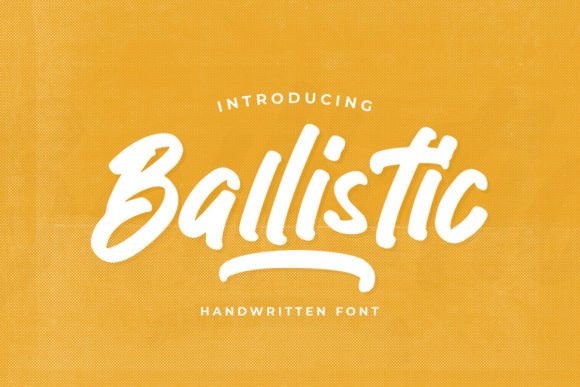
Enhance Your Brand with Ballistic: A Versatile Handwritten Font
As a small business owner, I know the importance of making a strong first impression. Recently, while redesigning the packaging for my bakery, I stumbled upon Ballistic, a cool, paint brushed handwritten font that has completely transformed our brand's look and feel.
Discovering the Perfect Font for Our Bakery
When it comes to branding, every detail matters. For my bakery, I wanted a typeface that would not only stand out but also reflect the warmth and creativity of our products. Ballistic was the perfect choice. Its unique, hand-painted style adds a personal touch to our product labels, making each item feel special and thoughtfully crafted.
Using Ballistic in Logo Design and Product Labels
One of the first things I did was incorporate Ballistic into our logo. The fluid, artistic lines of the font perfectly captured the artisanal quality of our baked goods. On our product labels, the font's playful yet elegant character made our pastries and breads look even more inviting. It’s amazing how a simple change in typography can make such a big difference!
Creating Consistent and Memorable Packaging
Consistency is key in building a strong brand. With Ballistic, we were able to create a cohesive look across all our packaging. From cake boxes to cookie bags, the font's distinctive style helped our products stand out on the shelves. Customers now recognize our brand instantly, which has been a huge boost for our visibility and sales.
Designing Eye-Catching Menus and Flyers
Our café menu and promotional flyers also got a makeover. Using Ballistic for section headings and special offers, we created a visually appealing and easy-to-read layout. The font's readability and charm made the menu more engaging, and our customers love the new look. It’s a small change, but it makes a big impact.
Boosting Online Presence with Social Media Graphics
In today’s digital age, having a strong online presence is crucial. We used Ballistic to design Instagram posts, stories, and banners for our online shop. The font's versatility allowed us to create both elegant and playful graphics, which have significantly increased our engagement and reach. Our followers now look forward to seeing our creative and consistent posts.
Font Pairing and Readability Tips
To ensure readability and balance, I paired Ballistic with a clean sans serif font for longer text and body copy. This combination works well for both print and digital materials. For smaller labels and mobile screens, I recommend using Ballistic sparingly, perhaps for titles or decorative accents, to maintain clarity and legibility.
In conclusion, Ballistic has been a game-changer for our bakery. Its unique style and versatility have helped us create a more professional, consistent, and memorable brand. Whether you’re a small business owner, a creative consultant, or a designer, Ballistic is a font that can truly enhance your creations and make your brand shine.